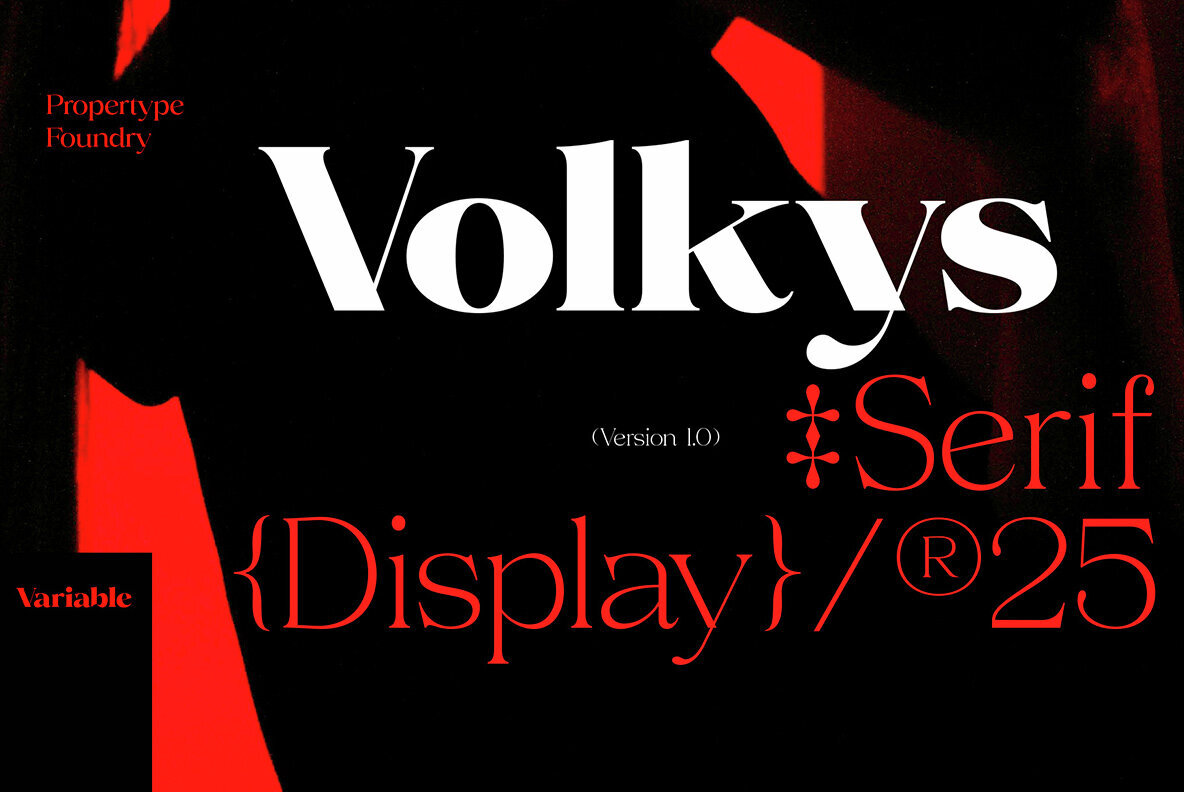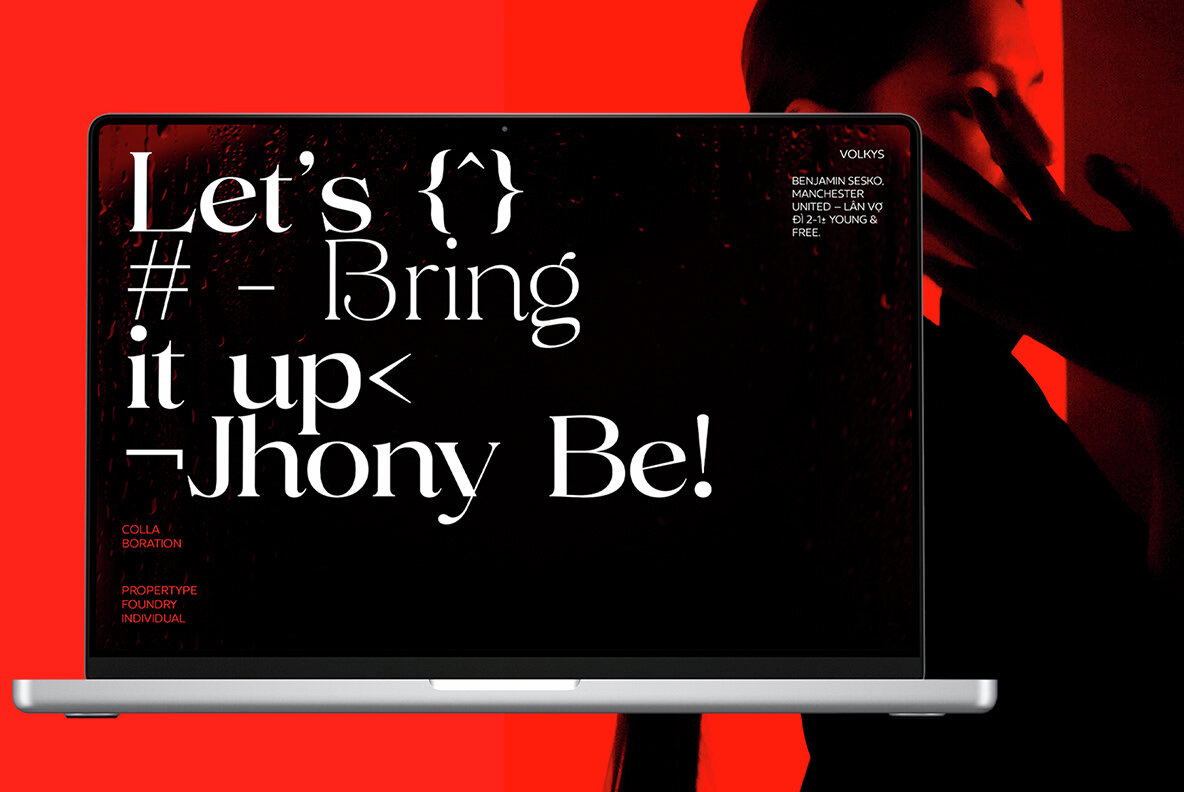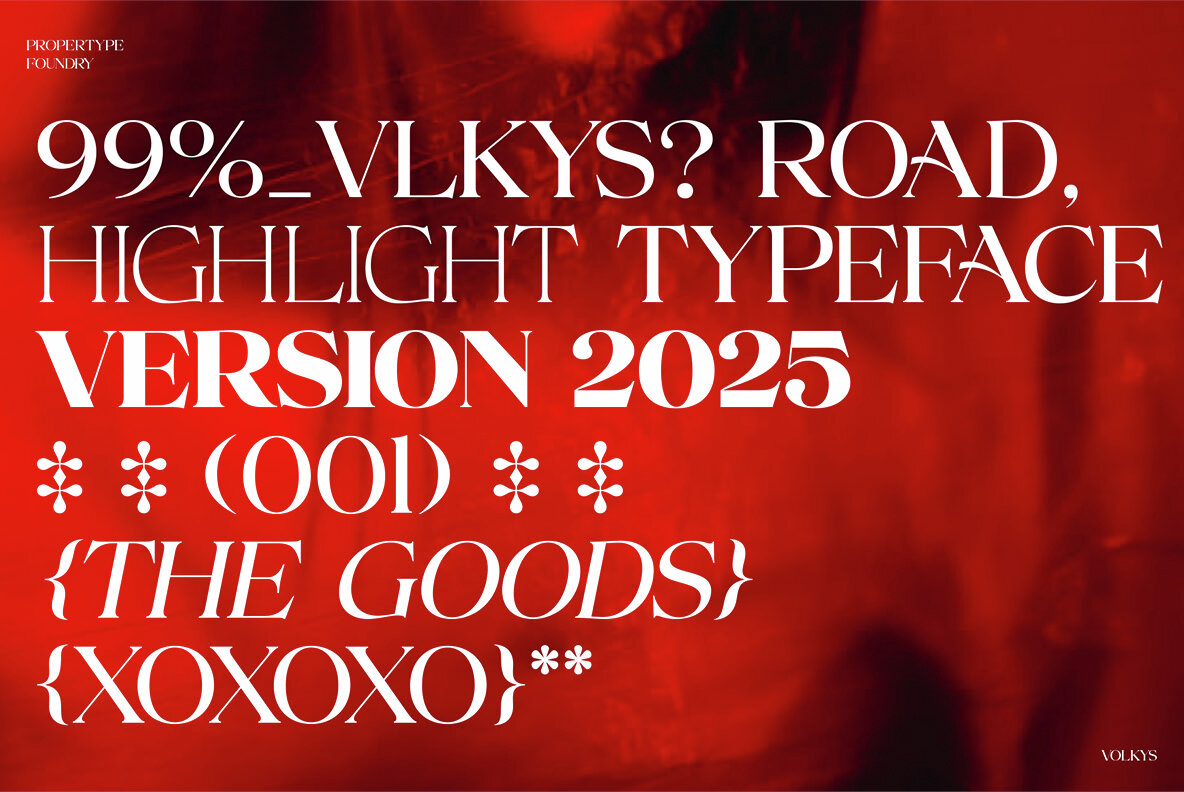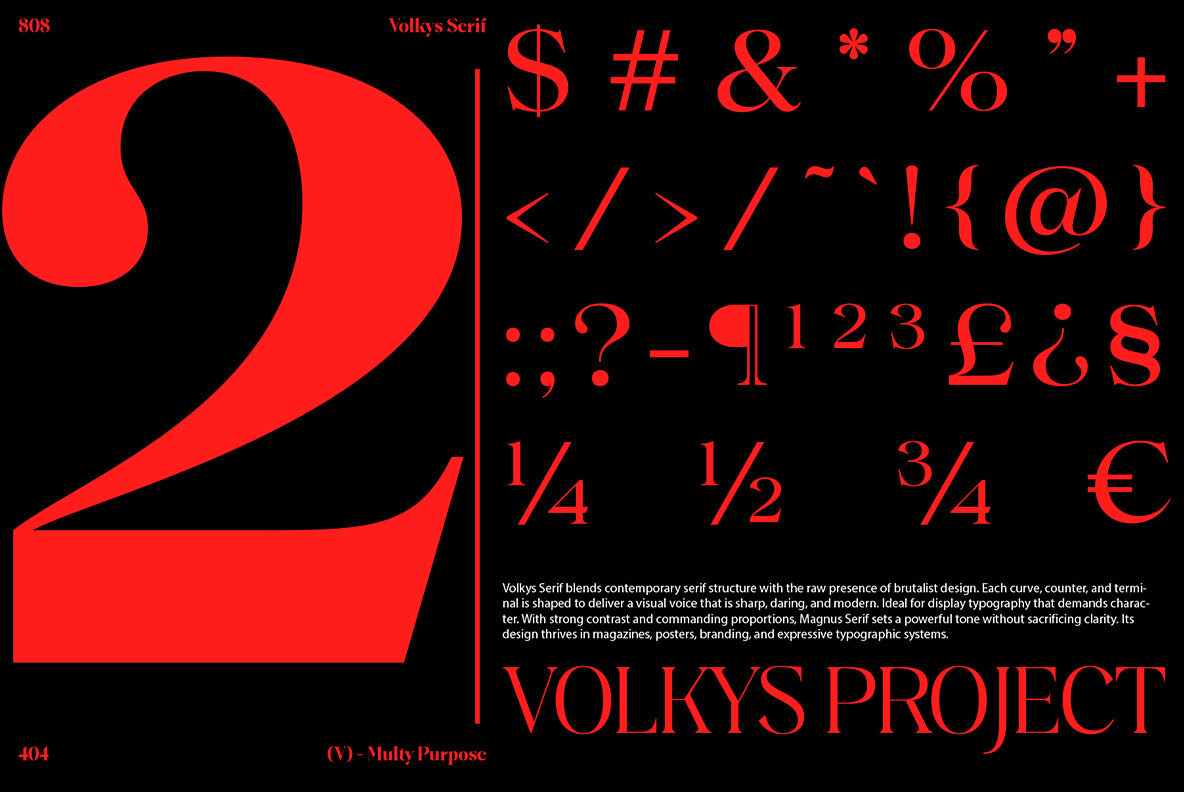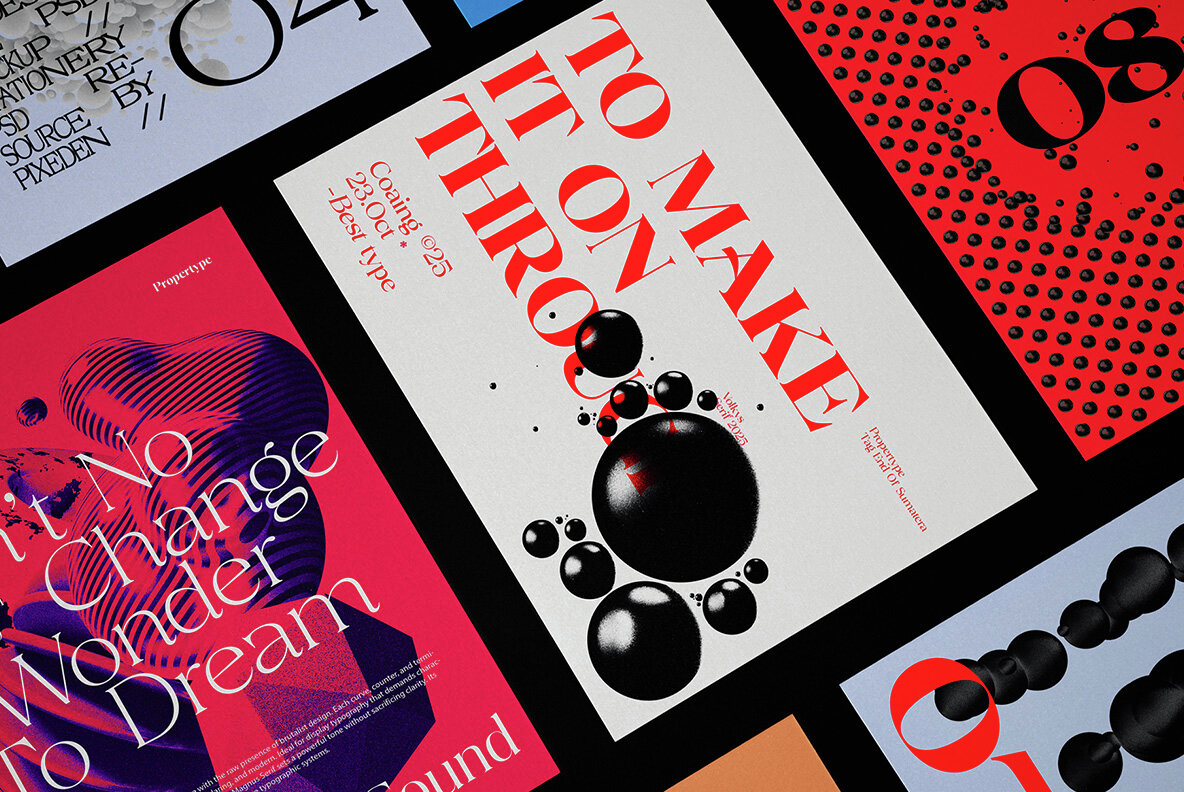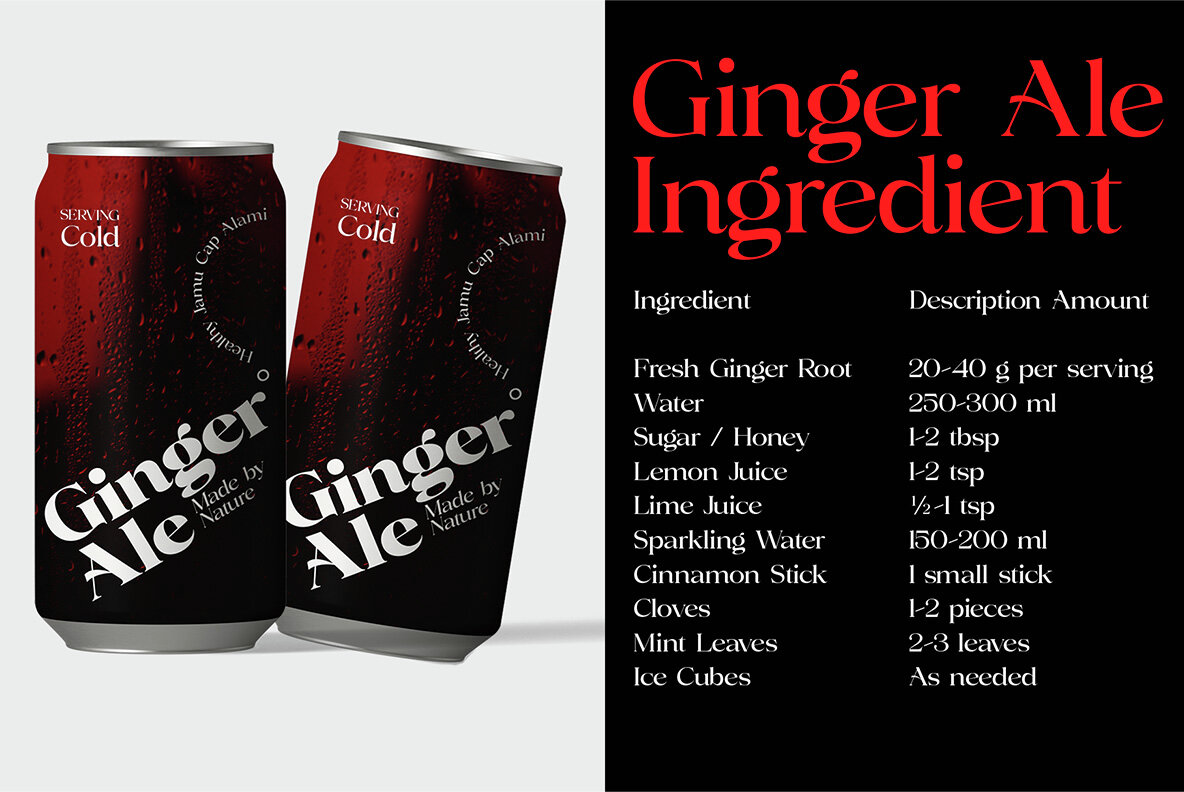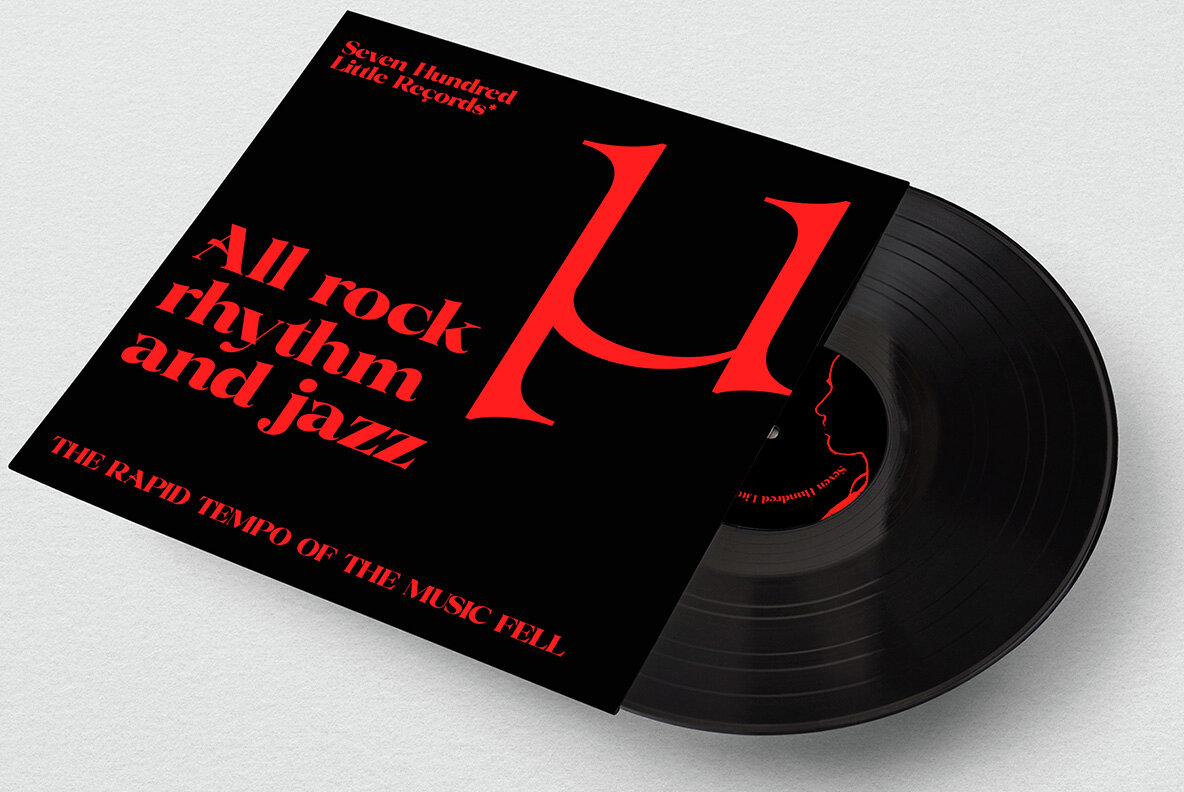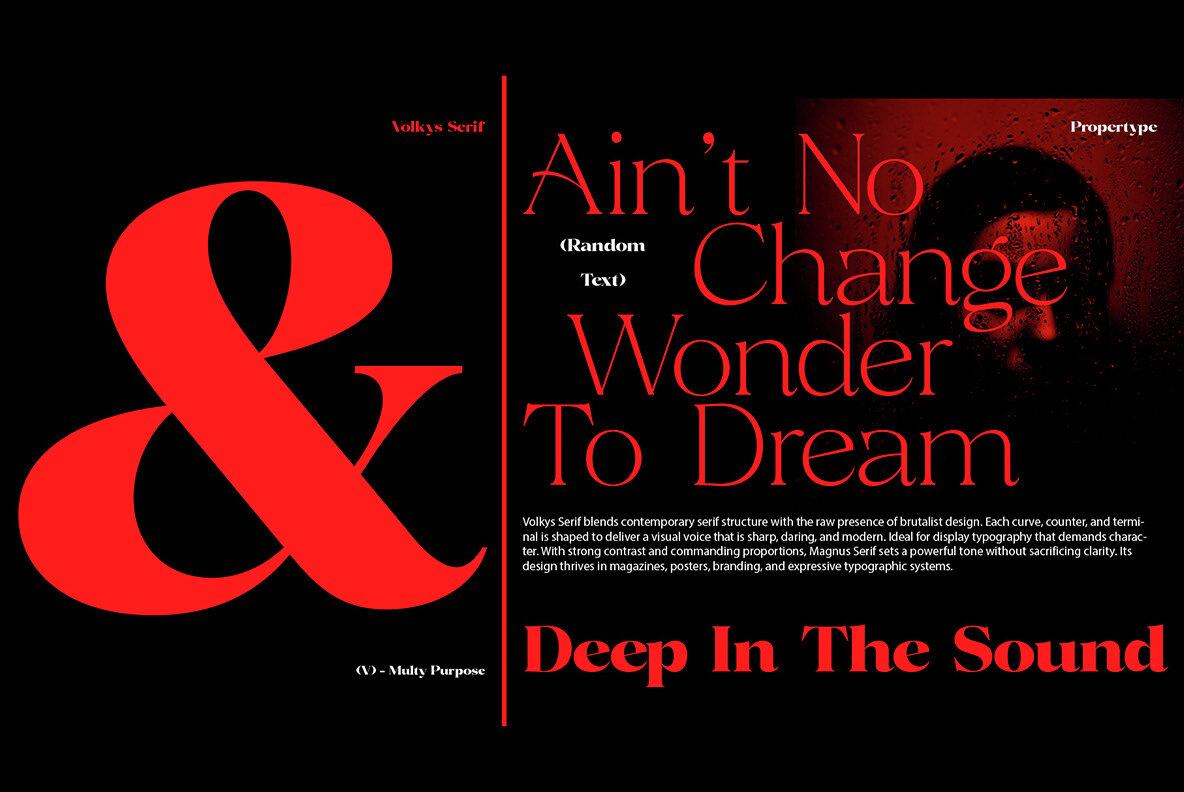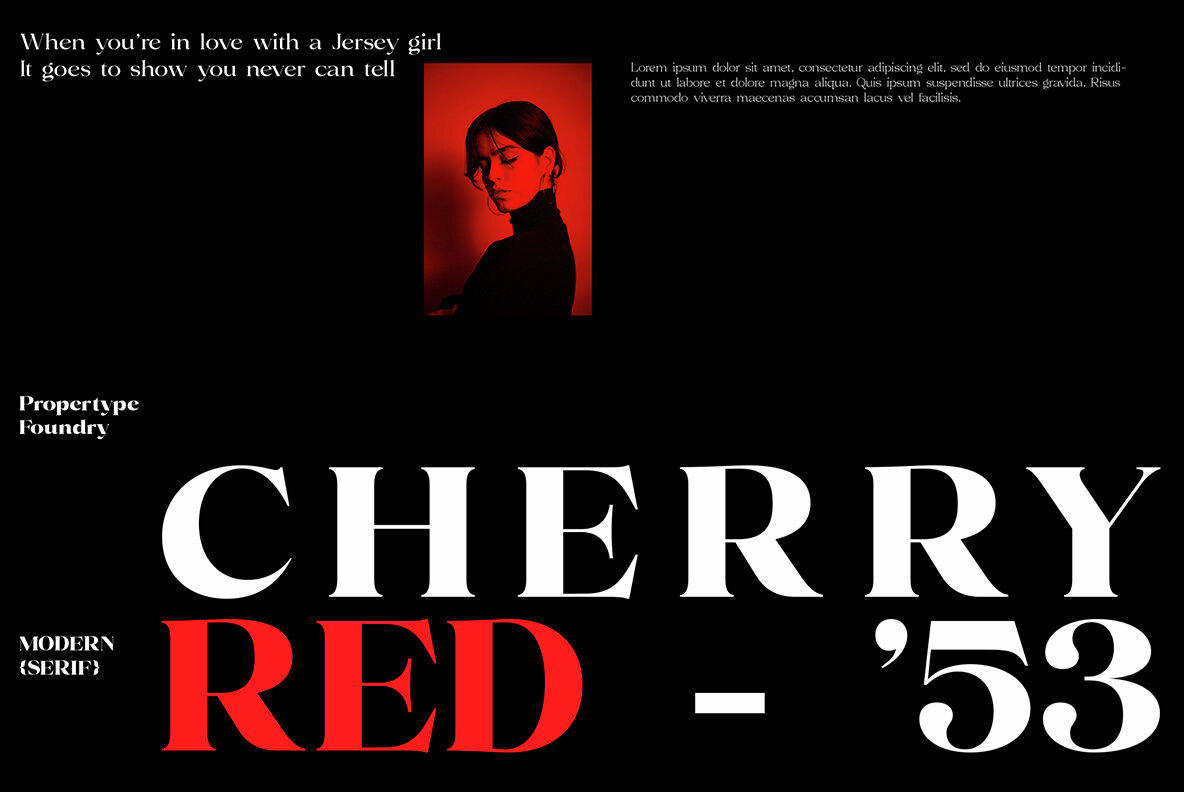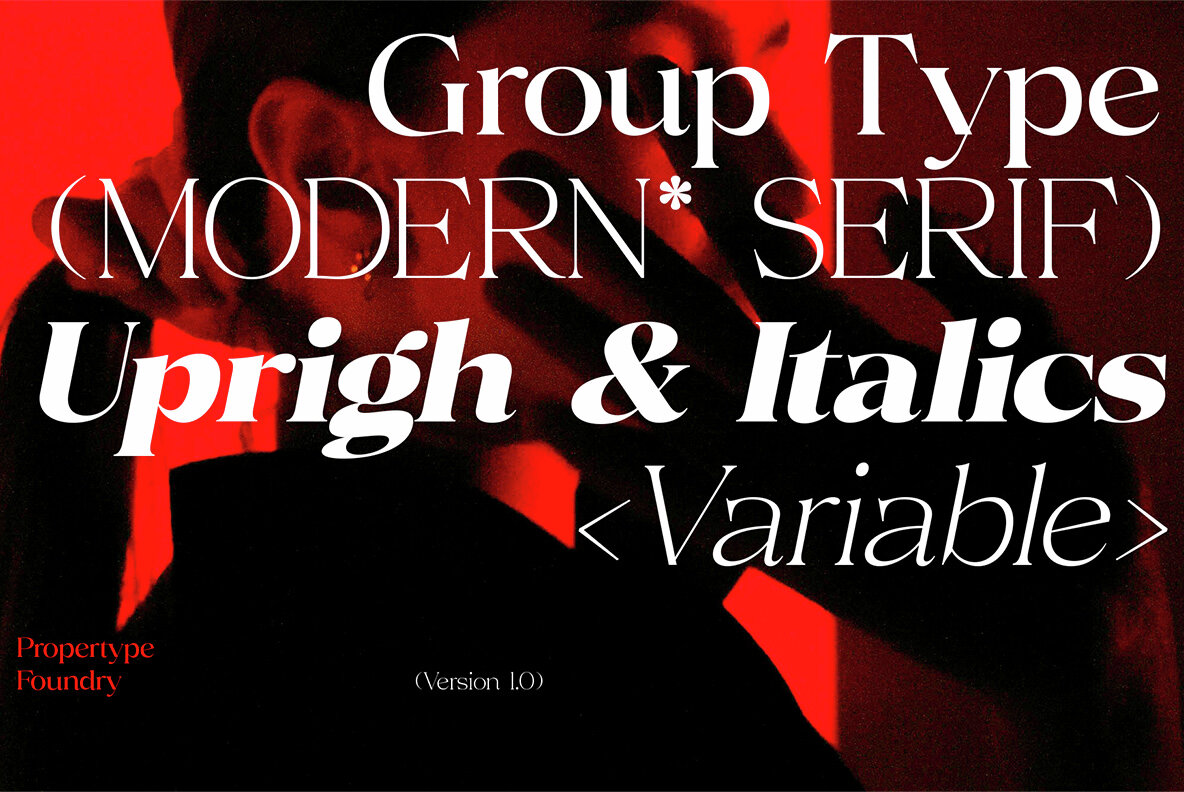
Volkys Serif Font
Volkys Serif features a striking balance between transitional and contemporary design. Its range, from thin to black weights, adapts seamlessly to various creative applications. Notably, as the weight increases, you’ll notice more pronounced natural curves, bold stems, and refined slants for greater visual presence. In lighter weights, the typeface provides a softer, warmer appearance with subtle optical adjustments. Each style includes elegant italics, extensive language support, and precise attention to detail. Whether you’re designing bold magazine headlines, refined packaging, or elegant branding, Volkys Serif maintains clarity and sophistication at every size.Volkys Serif—A High-Contrast Typeface Crafted for Versatility